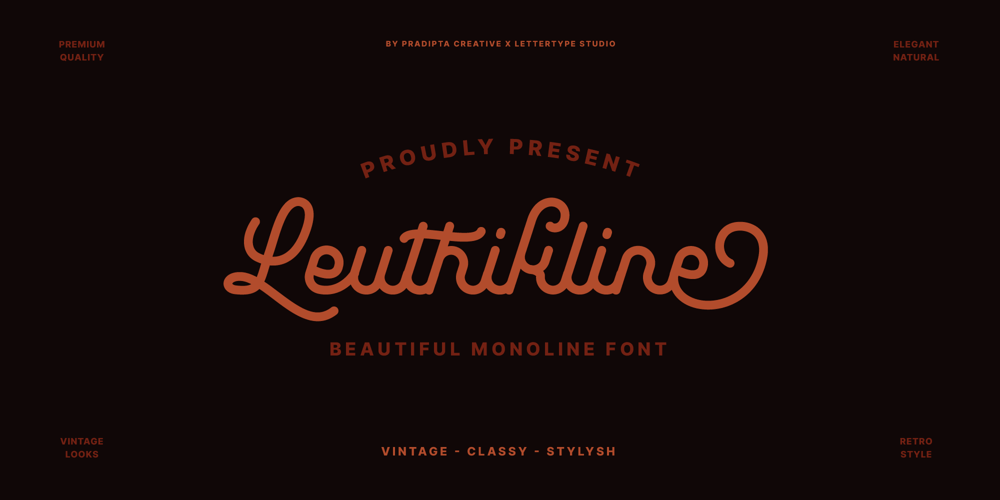
Leuthikline Font Family was designed by Diki Pradipta Tri Atmojo and published by Lettertype Studio. Leuthikline contains 1 styles and family package options. Leuthikline Script is a beautiful monoline font, perfect for logo design, branding, clothing design, signage, posters, wedding invitations and so much more! My goal in creating this font was to be an easy-to-read script font that would serve a variety of purposes and help your project to be more perfect and beautiful. Do not miss! Don’t Miss Out!Leuthikline Script comes with: Lowercase and Uppercase Stylistic Alternates Numerals & Punctuation Accented characters Multiple Languages Supported Diki Pradipta Tri Atmojo ^Pradipta Creative & Lettertype Studio